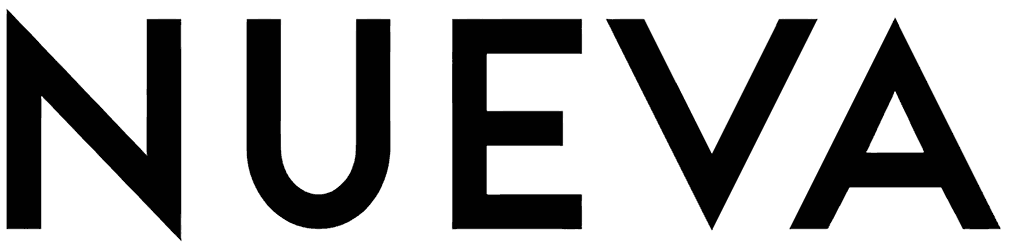
Nueva Font
Nueva font can be the epitome of modernity, simplicity, and clarity that adds a sleek and minimalist look to your writing and is perfect for conveying a sense of accuracy and credibility. This sans serif font can create…
Nueva font can be the epitome of modernity, simplicity, and clarity that adds a sleek and minimalist look to your writing and is perfect for conveying a sense of accuracy and credibility.
This sans serif font can create a modern and futuristic atmosphere and immerse your audience in the classic world. So, if you’re looking for a versatile font that works well in web design, printed materials, logos, and branding, Nueva can meet your design needs well, even without lowercase letters.